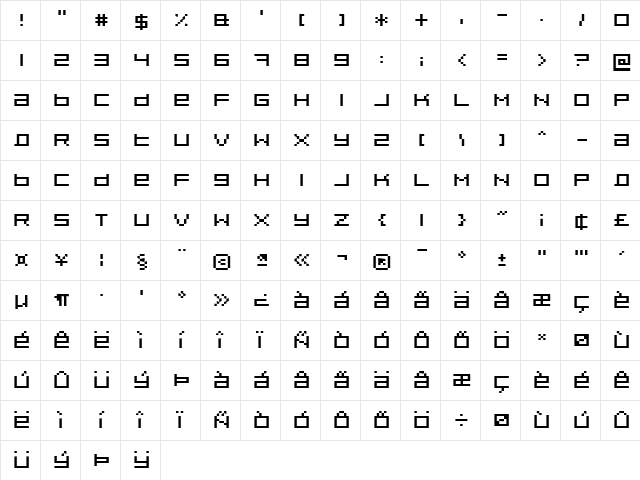
Pixeldust Expanded Regular
| Designer | Andreas Nylin |
Design Context for Pixeldust Expanded Typeface
Pixeldust Expanded celebrates the constraints of early digital type, turning pixel geometry into a distinctive and immediately recognisable style.
A natural choice for retro game titles, chiptune music branding, 8-bit UI, and digital nostalgia projects.
Pro Tip: Pair Pixeldust Expanded with flat colour palettes and simple geometric UI elements to reinforce its digital aesthetic.